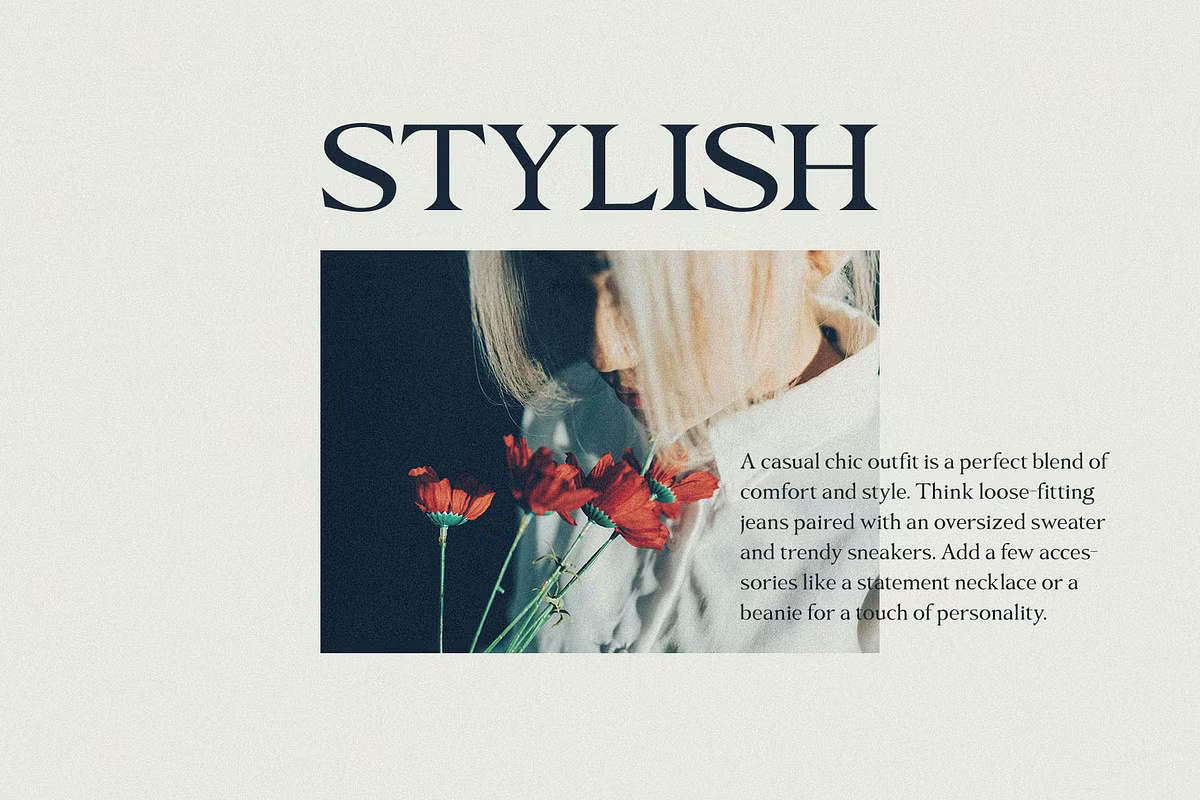
Naghey Font
Naghey is a sophisticated serif typeface that blends classic elegance with modern style. Its clean and refined design makes it ideal for display use, including headings, logos, branding, magazines, product packaging, and invitations.